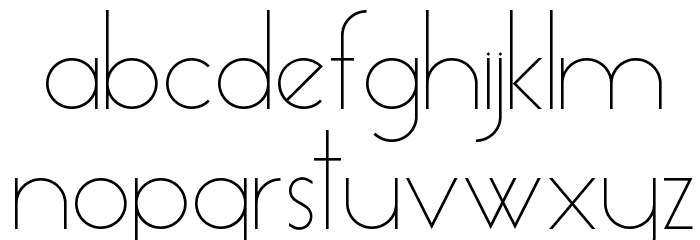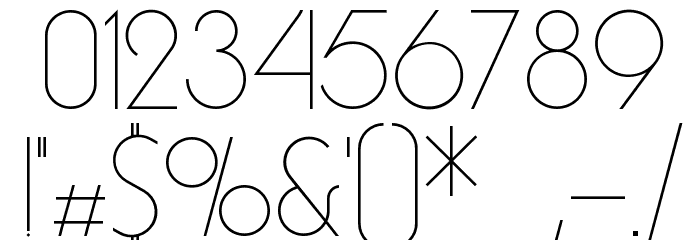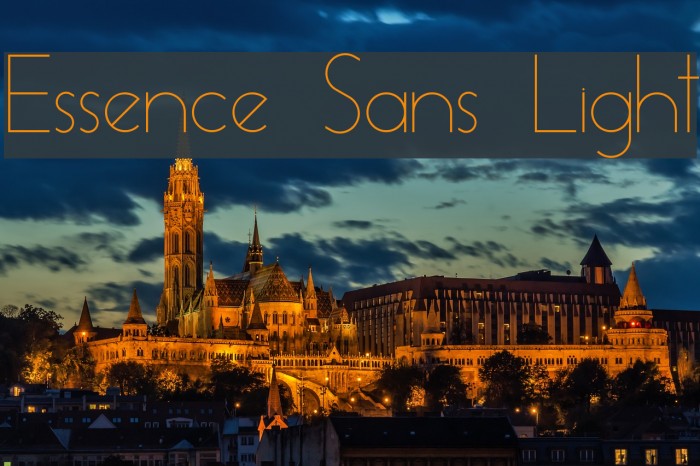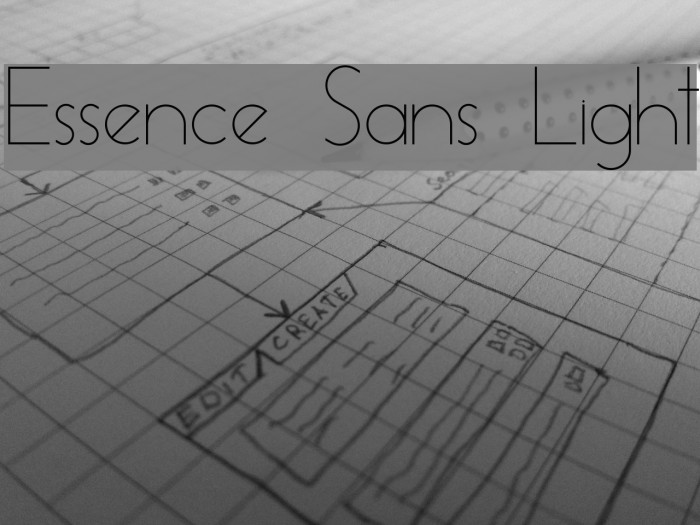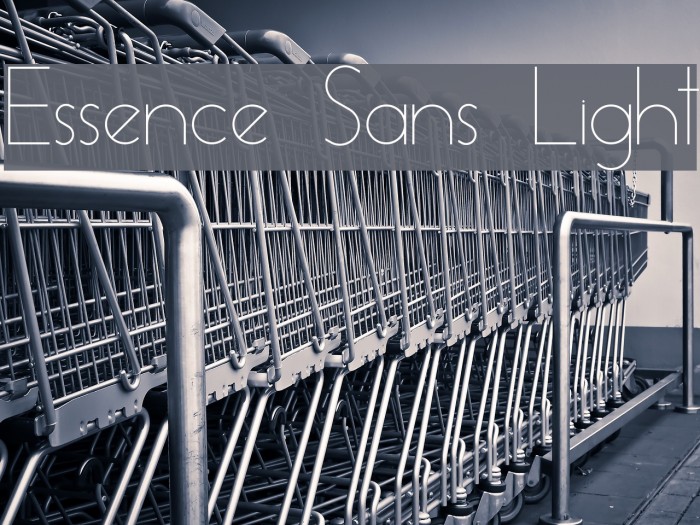
Essence Sans Light Font
This font features a clean and minimalist design with a focus on geometric shapes and thin lines. The uppercase and lowercase letters are crafted with precision, exhibiting a modern and airy feel. The numerals are consistent with the overall style, maintaining the same thin strokes and geometric form. Special characters are designed to complement the alphabet, ensuring a cohesive look across all glyphs. The font's simplicity and elegance make it suitable for a variety of design applications, from digital to print media.
A modern, geometric sans-serif font with thin strokes and a minimalist design.
- Proposed Projects: Ideal for branding, editorial design, websites, and minimalist graphic design projects.